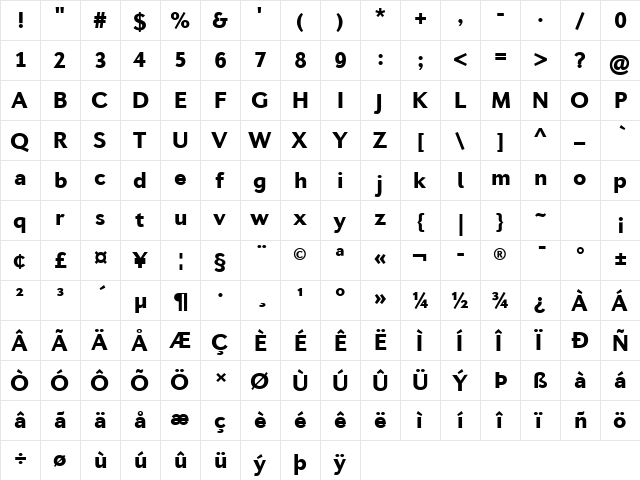
Diverda Sans Com Black
| Foundry | Linotype GmbH |
| Designer | Daniel Lanz |
Design Context for Diverda Sans Com Typeface
Diverda Sans Com offers clean, dependable letterforms without strong stylistic allegiance, making it a practical choice for designers who need flexibility.